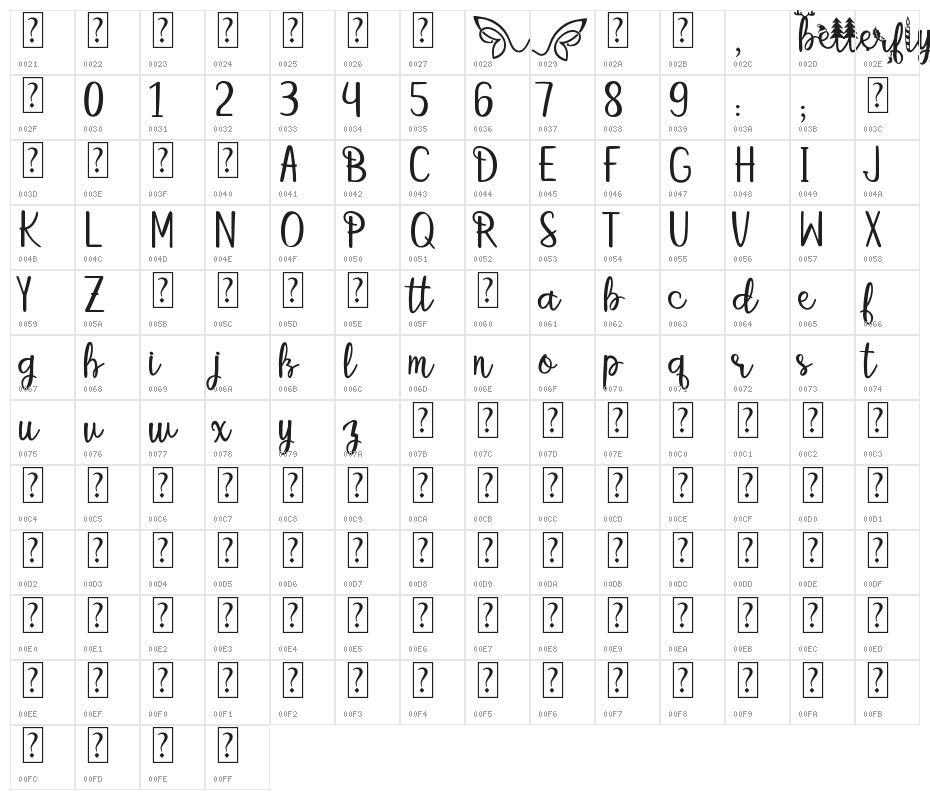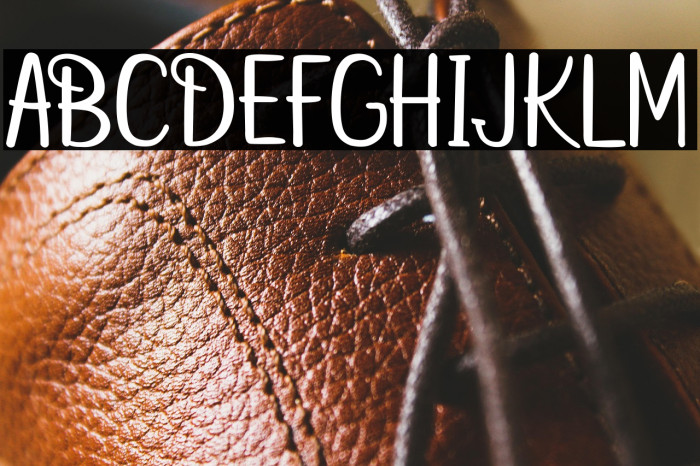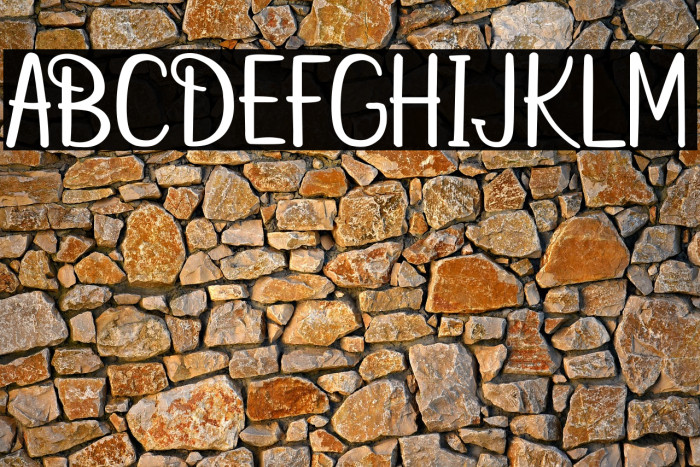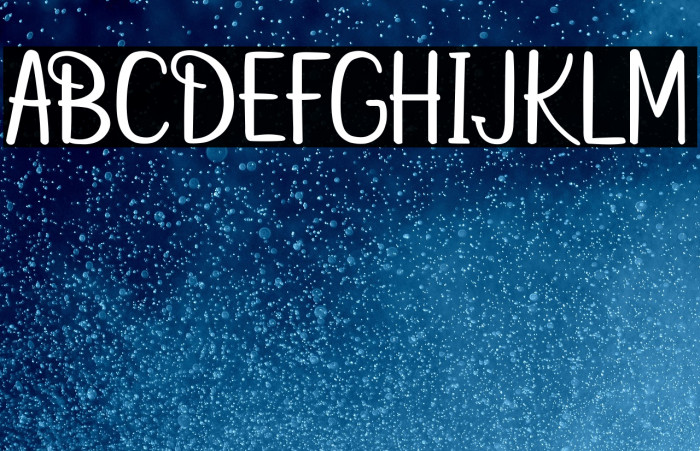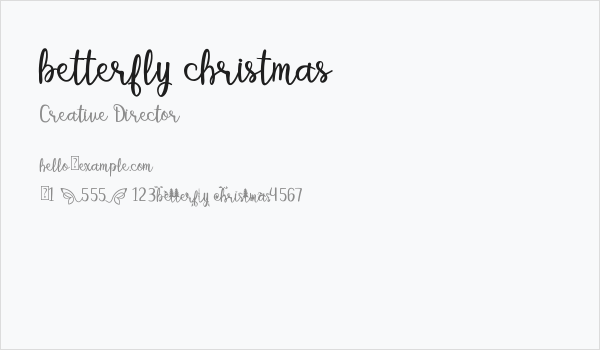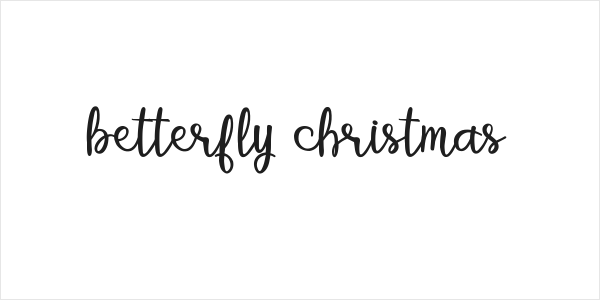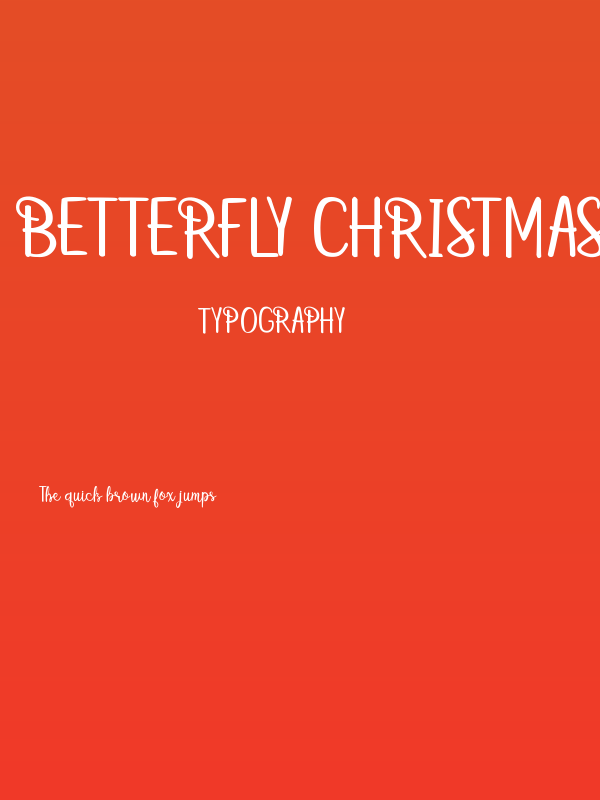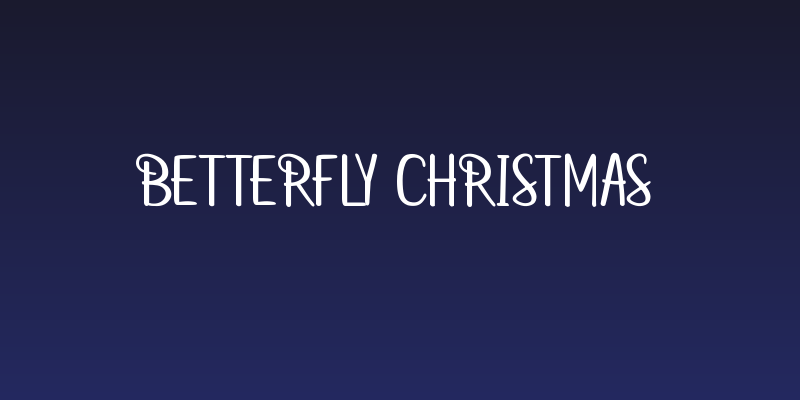
betterfly christmas Font
betterfly christmas Description
This font features a playful and whimsical style, combining both uppercase and lowercase letters with a handwritten feel. The uppercase letters are bold and slightly condensed, while the lowercase letters exhibit a flowing, cursive-like quality. The numbers are clear and easy to read, maintaining the playful essence of the font. Special characters are creatively designed, adding a unique touch to the overall appearance. The font's style is suitable for festive and cheerful themes, making it ideal for holiday-related projects.
Use CaseHeadlines, Logos, Decorative text
Proposed ProjectsIdeal for holiday cards, festive invitations, playful branding, and decorative posters.